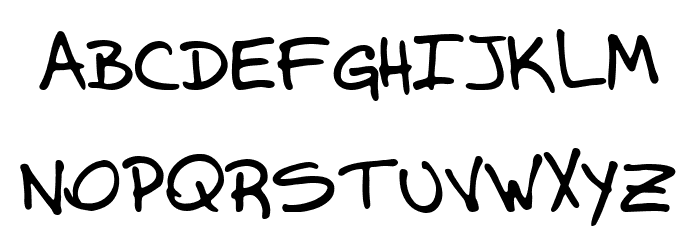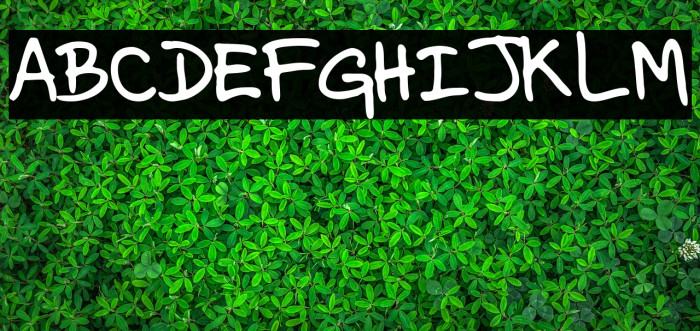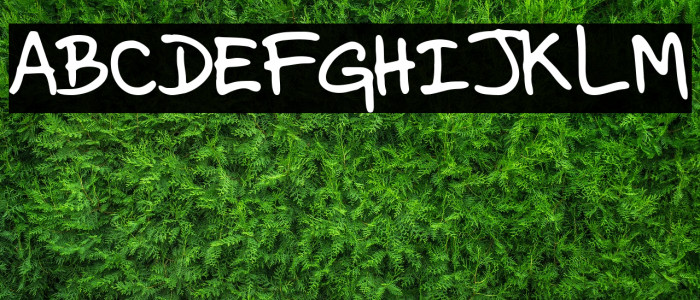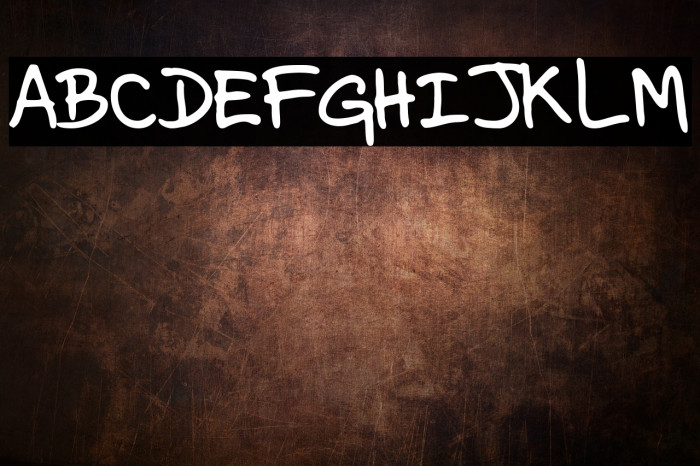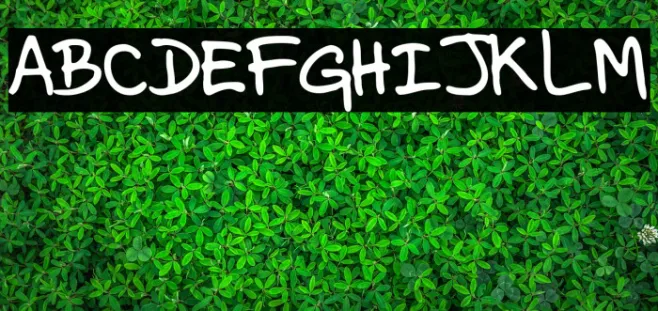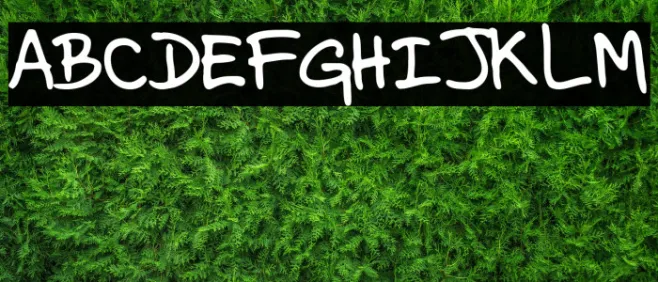
HOUSE QUEEN Font
This font features a playful and casual handwritten style, characterized by its smooth, rounded strokes and slightly irregular letterforms. The uppercase letters are bold and prominent, while the lowercase letters maintain a consistent flow, enhancing readability. The font exudes a friendly and approachable vibe, making it suitable for informal and creative projects. Its organic appearance is achieved through varying stroke widths, adding a touch of authenticity and warmth. The overall design is balanced, with each character maintaining a harmonious relationship with the others, ensuring a cohesive look across different text sizes.
A playful, handwritten font with smooth, rounded strokes and a casual vibe.
- Proposed Projects: Ideal for greeting cards, children's books, casual branding, and social media graphics.
- Category: Handwritten
- Overall Style: Casual
- Use Case: Headlines, Logos, Informal Text